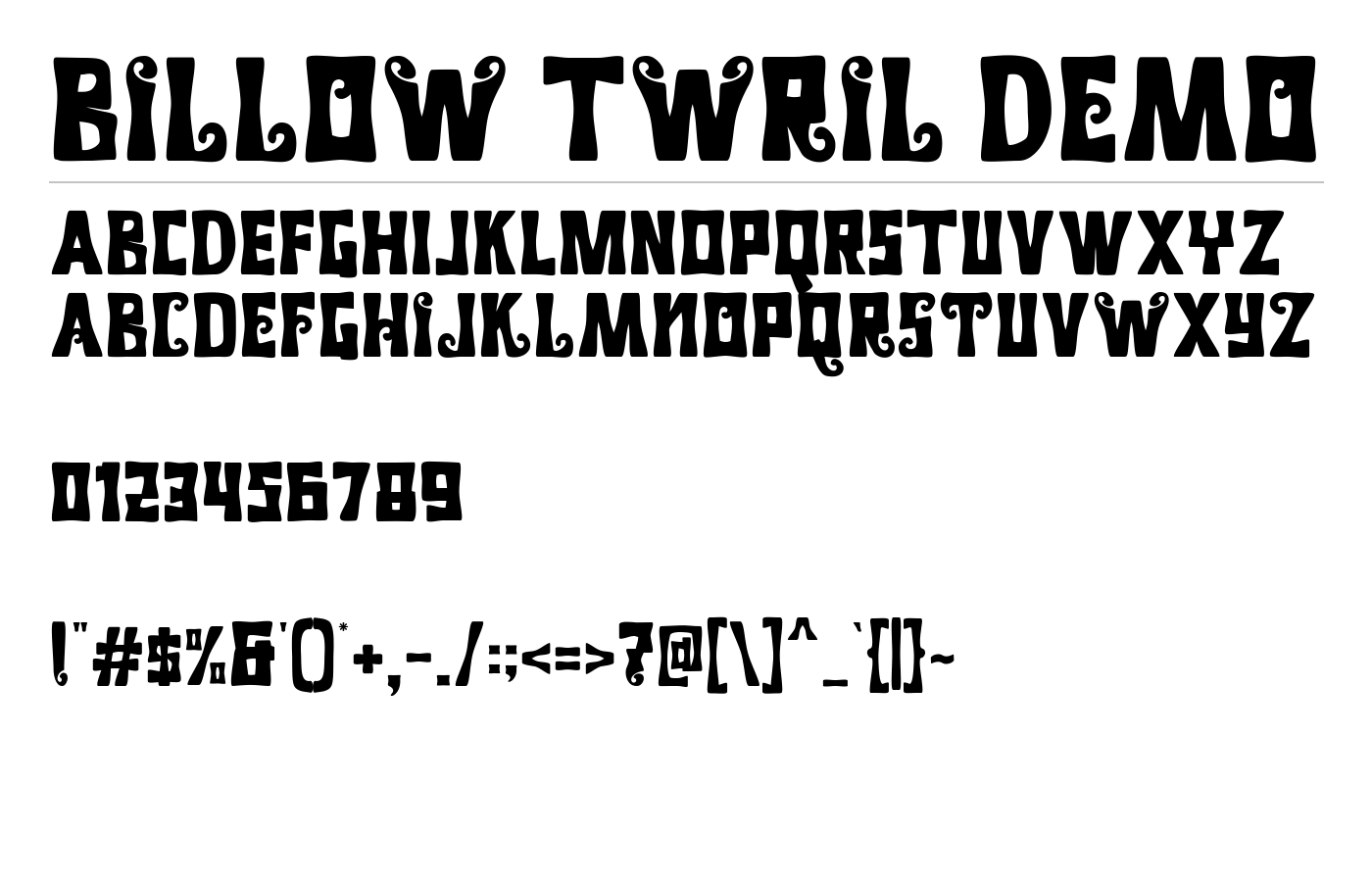
Billow Twril Demo is a playful and bold display font with a quirky, hand-crafted feel. Its thick, uneven strokes and whimsical curls add a fun, casual personality, making it ideal for lively branding, posters, and headlines that need a touch of creativity and charm. This font works best where a strong, cheerful impact is desired, especially in designs for children, entertainment, and informal settings.
Billow Twril Demo Font
About Billow Twril Demo Font
| Font family | Billow Twril Demo Font |
| Designer | Suandana Ipandemade |